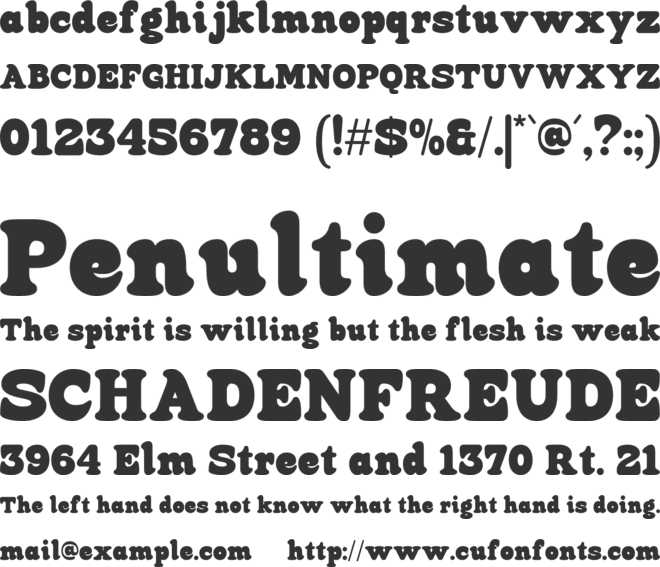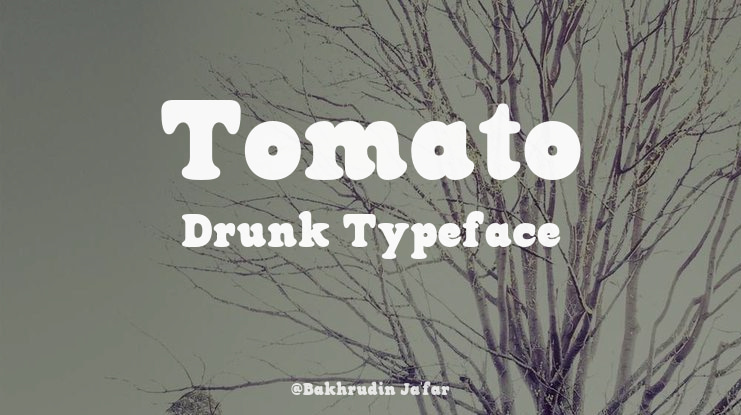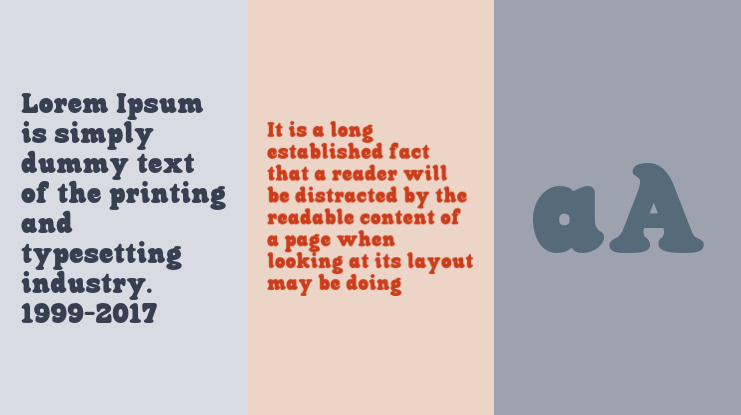
Tomato Drunk Font Family
Tomato Drunk is a bold retro serif font with rounded edges, playful charm, and groovy style. Designed to evoke a modern yet nostalgic vibe, this font is perfect for adding a touch of fun and elegance to your creative projects.
Whether you’re designing logos, branding, posters, packaging, or social media graphics, Tomato Drunk offers the flexibility to fit various themes. Its bold retro aesthetic is combined with a contemporary touch, making it a standout choice for designs that need a chic and professional look.
Tomato Drunk is ideal for designers who love to explore vintage styles with a modern twist, helping to create eye-catching and timeless work.
Feature:
Regular and Italic styles, ensuring flexibility for any design.
A retro-modern aesthetic that brings a nostalgic yet contemporary feel to your projects.
Uppercase & Lowercase
Numbers & Punctuation